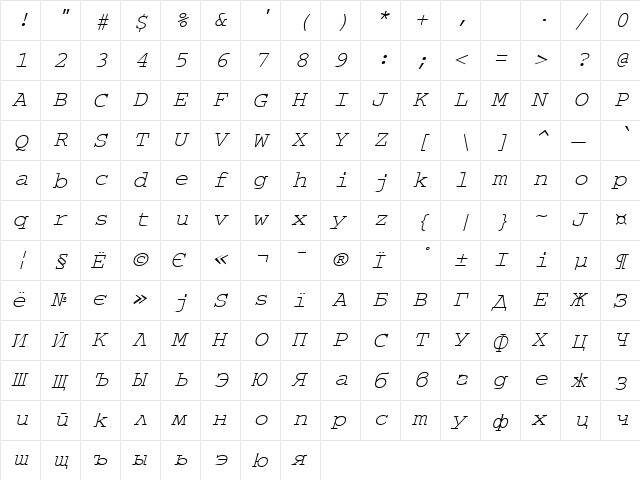
Maritsa Italic
Design Context for Maritsa Typeface
Maritsa offers clean, dependable letterforms without strong stylistic allegiance, making it a practical choice for designers who need flexibility. The dynamic lean of this cut emphasises speed and emphasis in any layout.
Pro Tip: Use Maritsa for emphasis, pull quotes, and subheadings where its slanted energy can add rhythm to the layout.